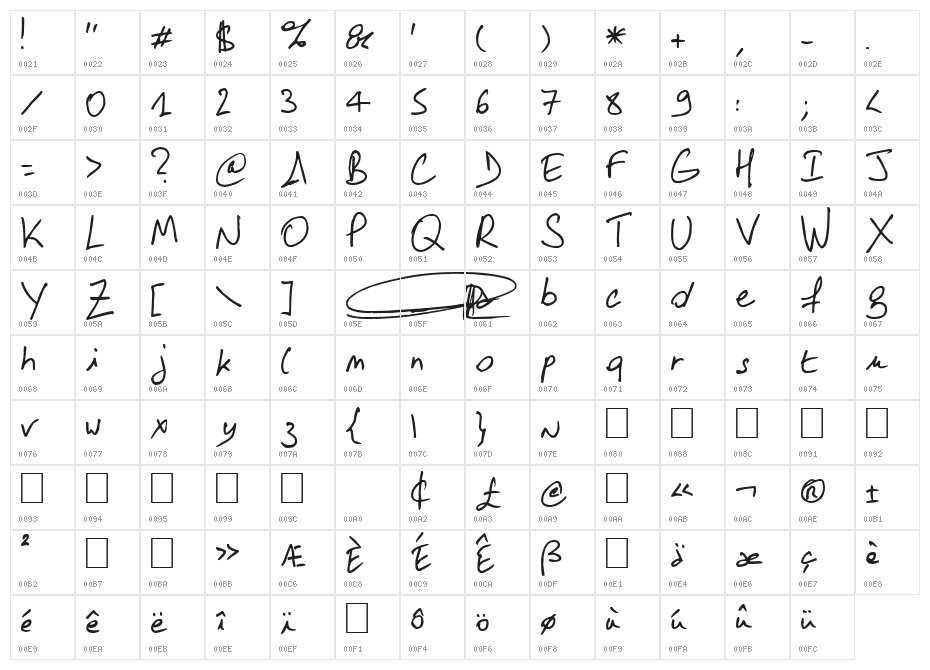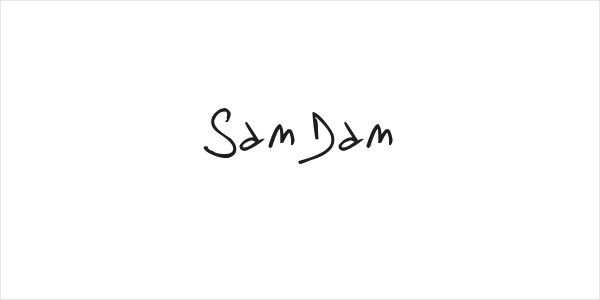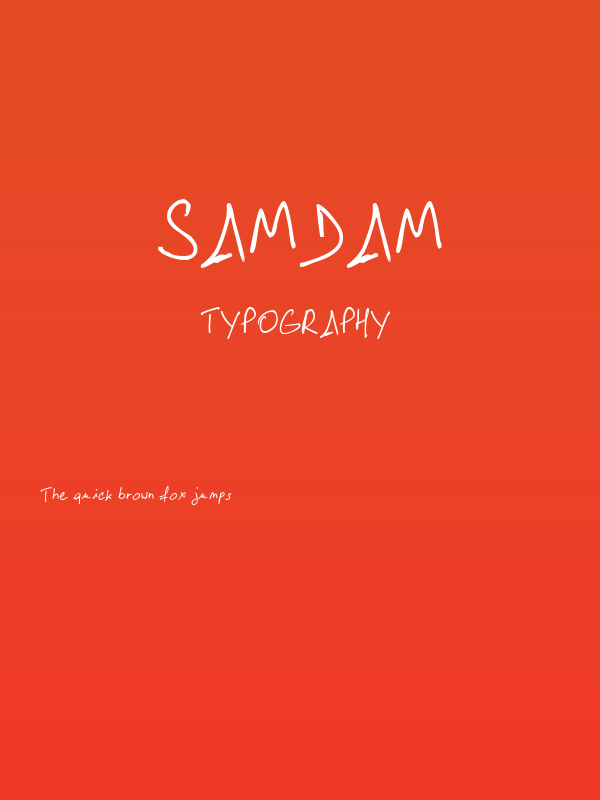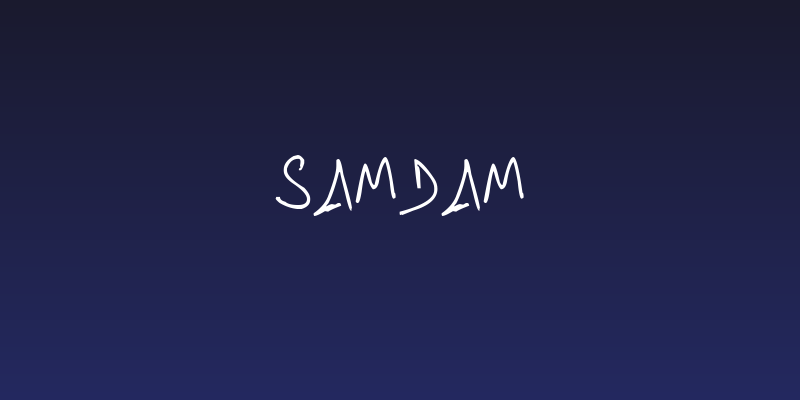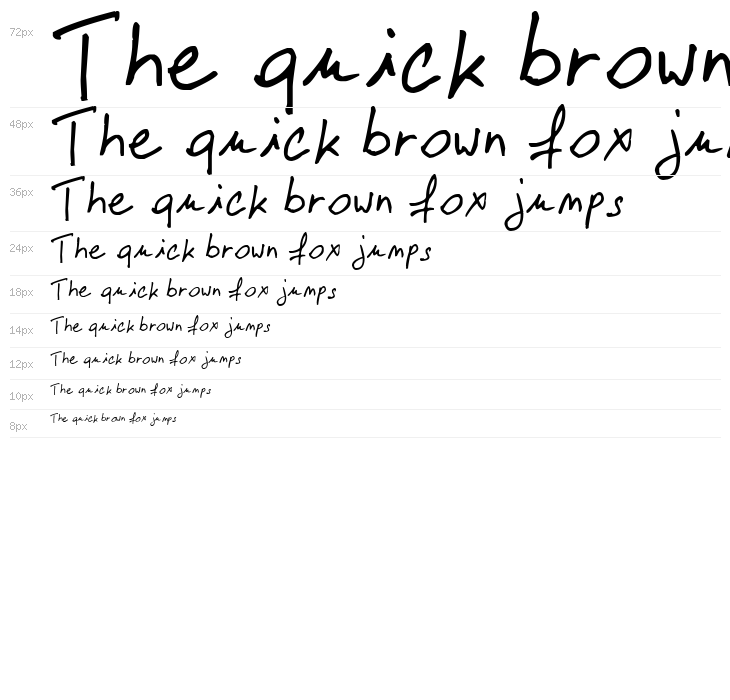
SamDam Font
SamDam Description
This font exhibits a casual, handwritten style with a playful and informal appearance. The characters are slightly irregular, mimicking the natural flow of handwriting. Uppercase letters are bold and prominent, while lowercase letters maintain a consistent size, enhancing readability. The numerals are clear and distinct, matching the overall style. Special characters are creatively designed, adding to the font's unique charm. The strokes are smooth and fluid, with moderate variation in thickness, giving a lively and dynamic feel.
| Overall Style | Casual |
| Use Case | Greeting cards, Invitations, Personal notes |
| Proposed Projects | Ideal for personal notes, greeting cards, informal invitations, and creative projects that require a personal touch. |